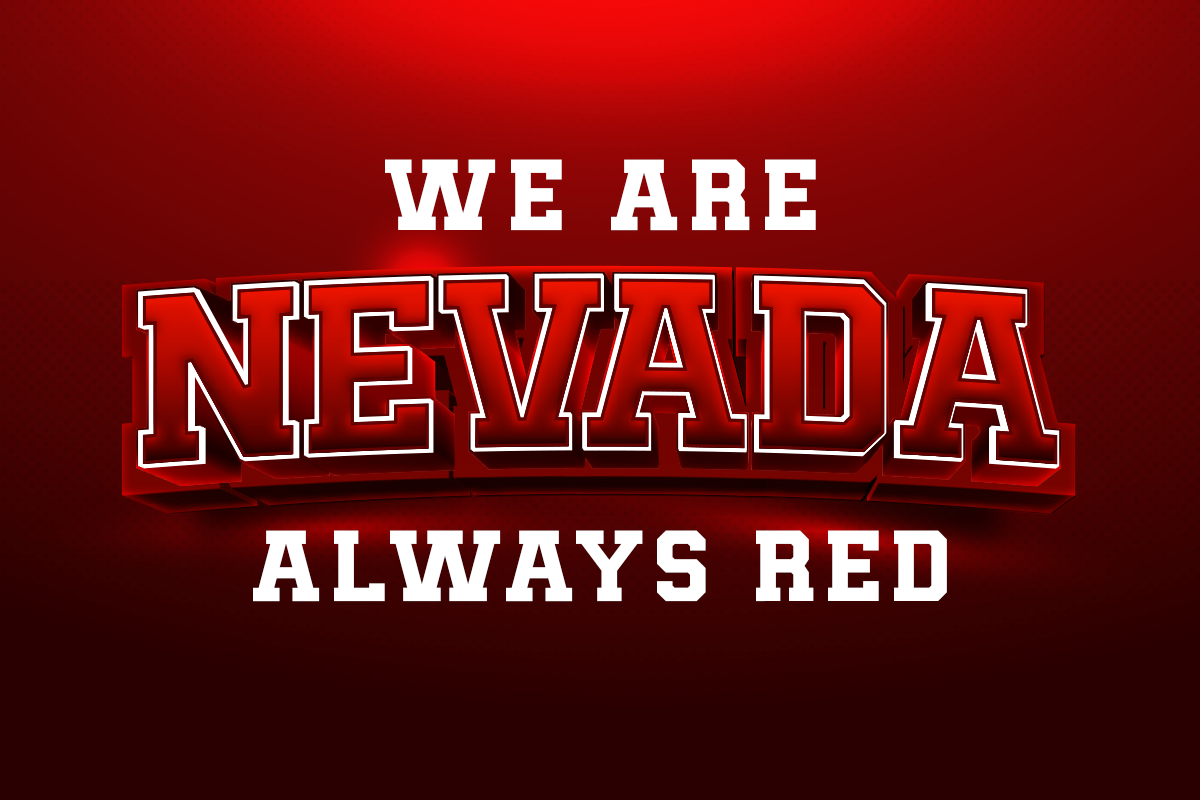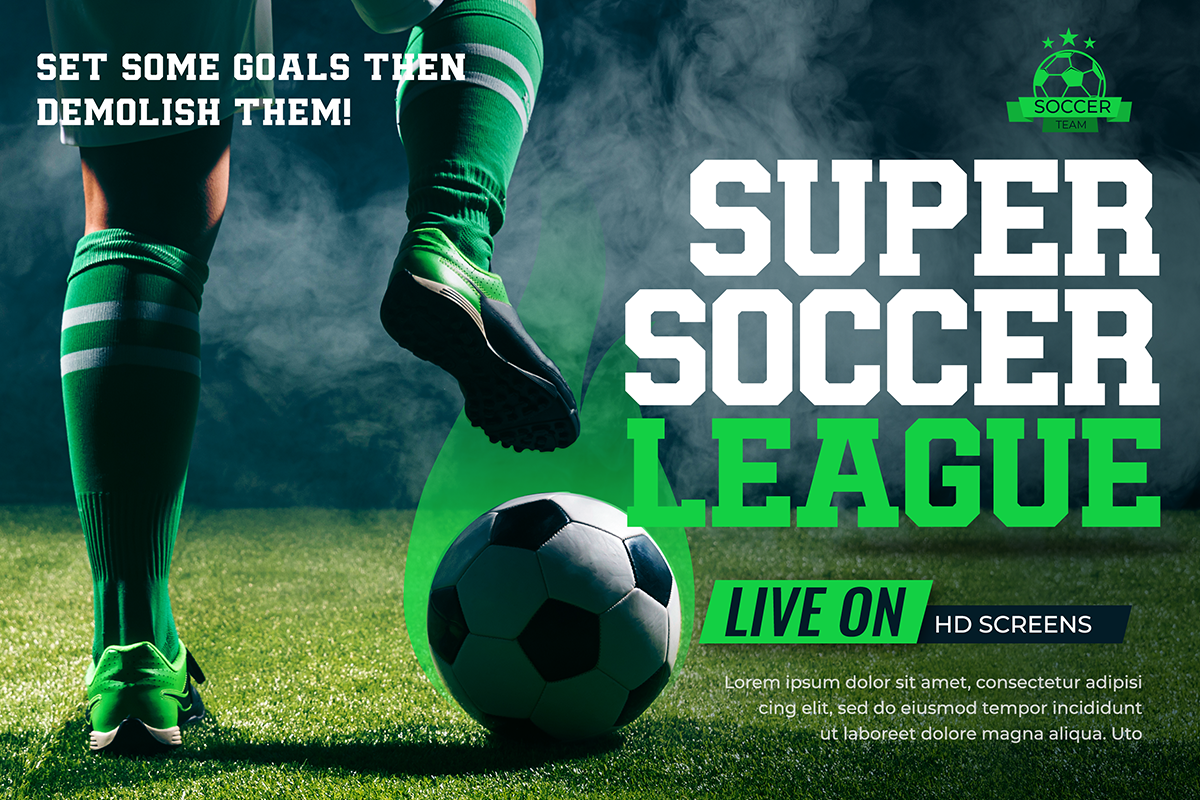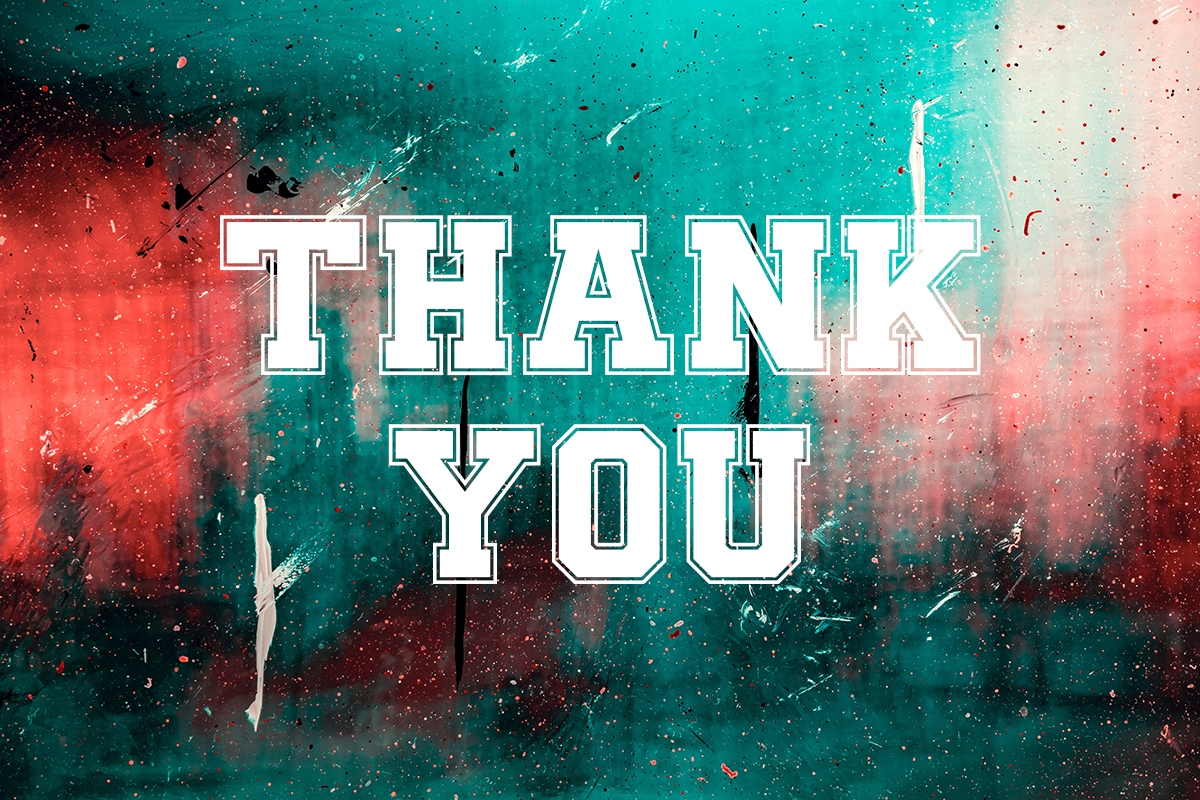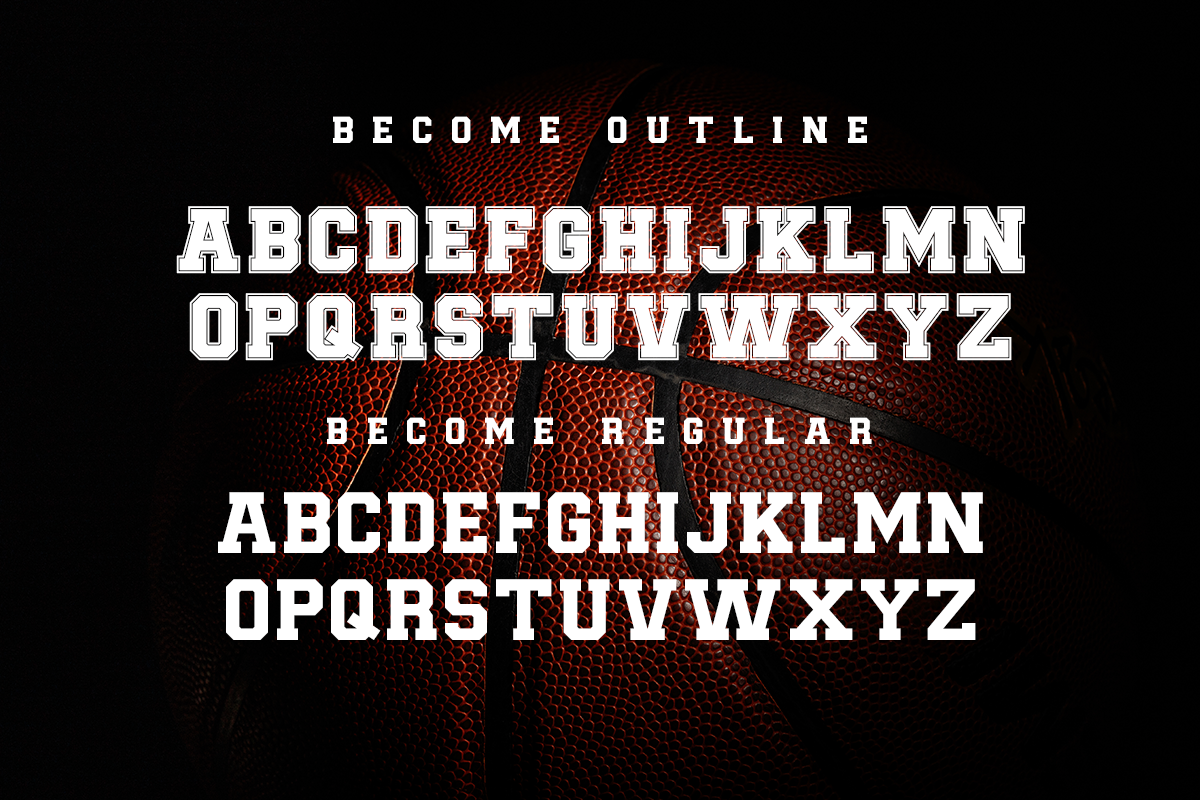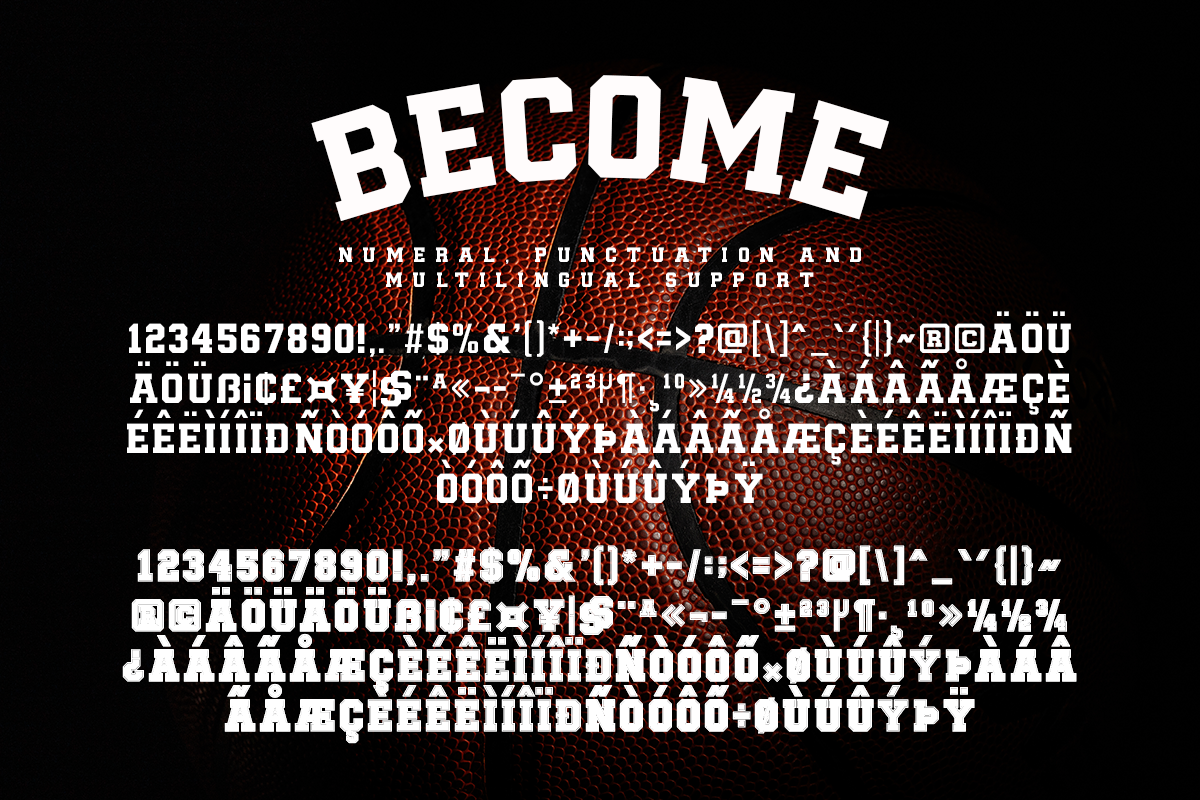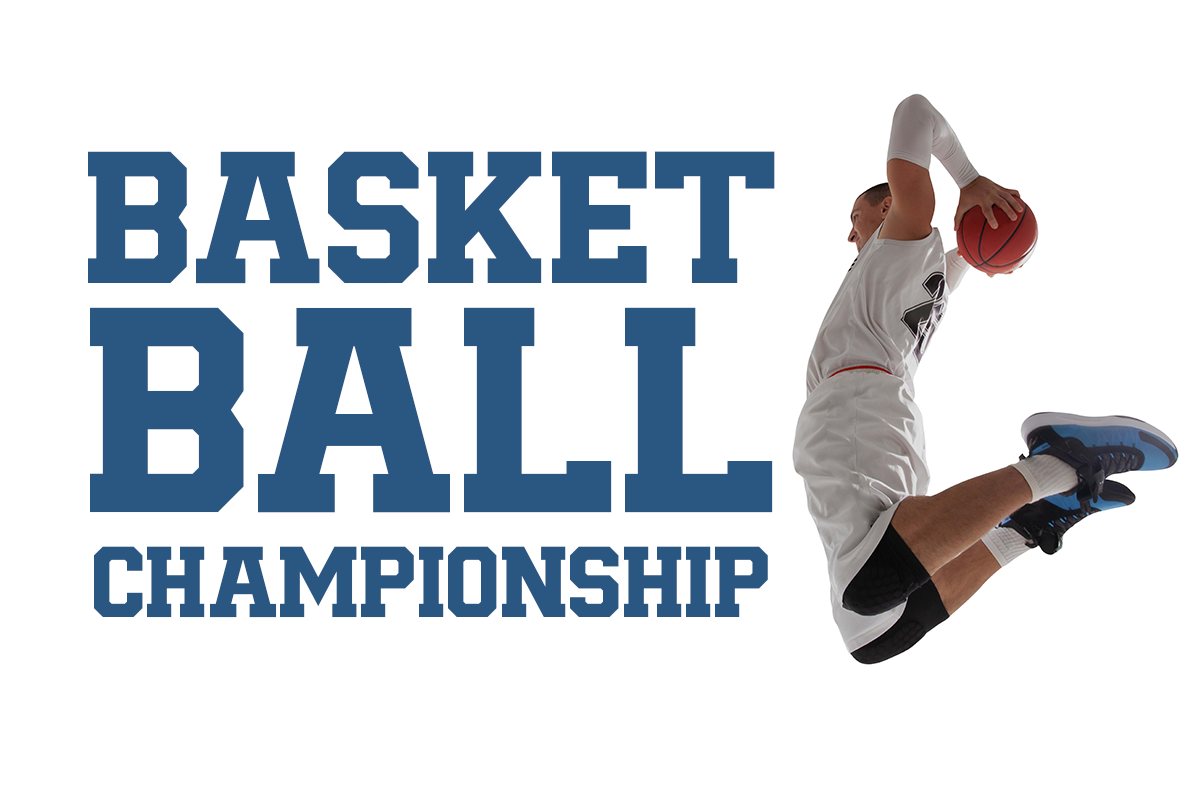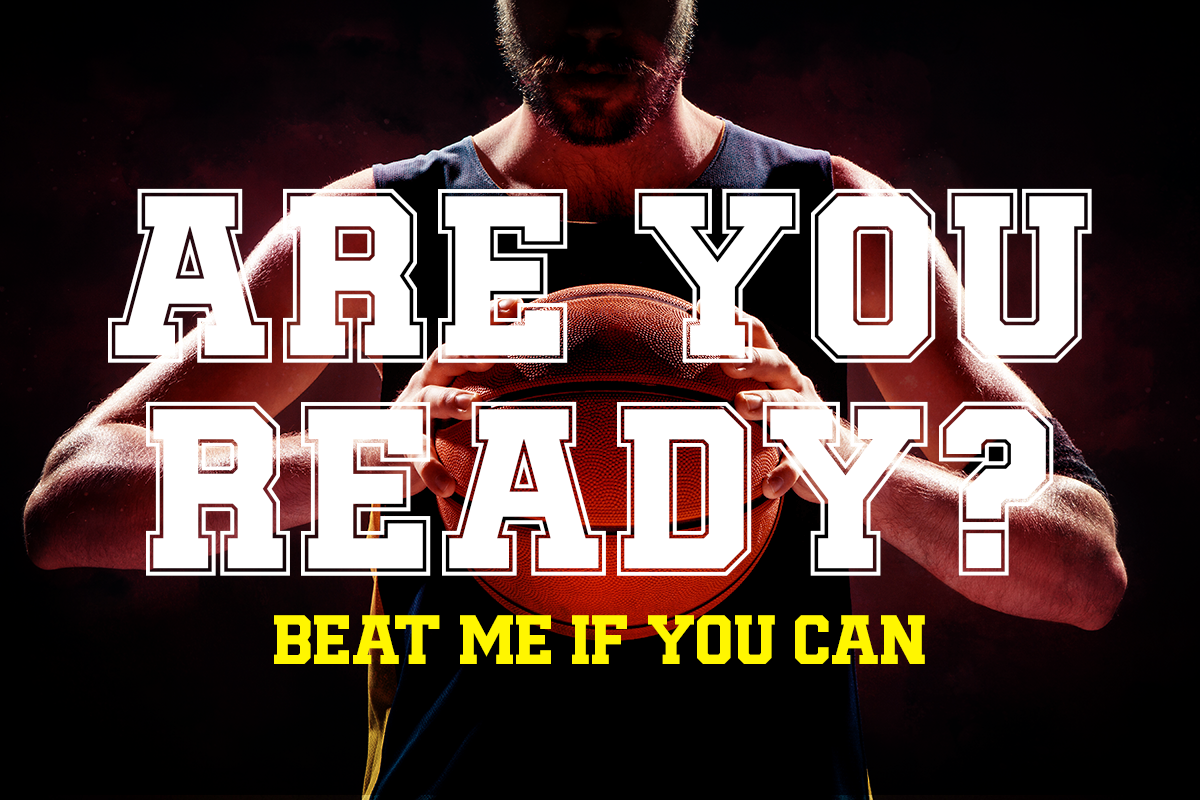
Become Modern Sport Font Become Modern Sport Serif font provides a new different look from the general serif fonts. The characteristics of a serif font that has an additional serif remain in this font, but the existing serif follows the actual font shape. Become Modern Sport Serif font is a serif font that looks clean, simple, and modern. It can also use as a bold font and modern font. Become Modern Sport Serif font has many matches when combined with some products. This font is the best font for sports equipment, like jerseys, T-shirts, Bags, etc. Fashion brand tags will be compatible with this typeface. There is no need to add excessive pictures and ornaments because Become Modern Sport Serif font has presented its identity where a simple yet modern impression radiates. Become Modern Sport Serif font is in the list of typefaces that can use as a digital font and print fonts. This font can use as a title that appears first in intro videos that catch the viewer's attention at a first impression. Posters and magazine covers are especially appropriate when using the Become Modern Sport Serif font. This is because even though this font is a serif typeface, it can be seen clearly and can be distinguished by each letter. So this font is included in the legible font. Our serif fonts collection is compatible for use as; Figma fonts, Canva fonts, Freepik Fonts, and Adobe Fonts. They also work as Windows Fonts and Apple Fonts. For your social media needs, you can use and install fonts in our Serif font collection to use as Instagram Fonts, Facebook Fonts, and Twitter Fonts.